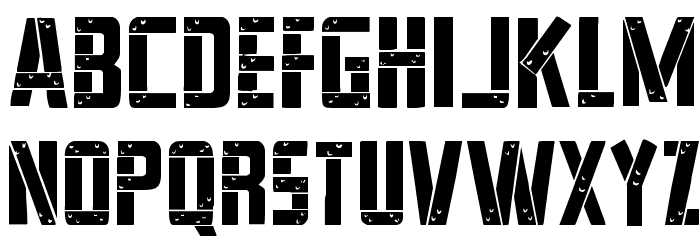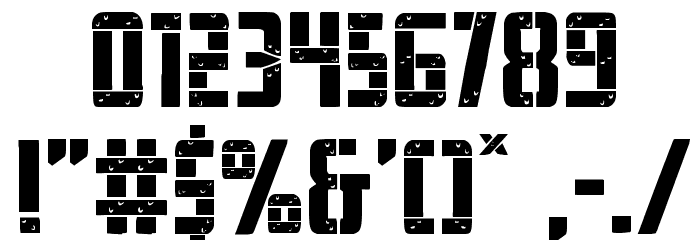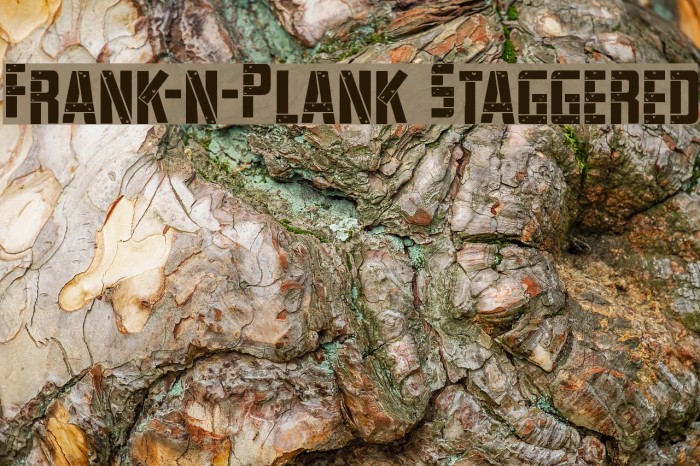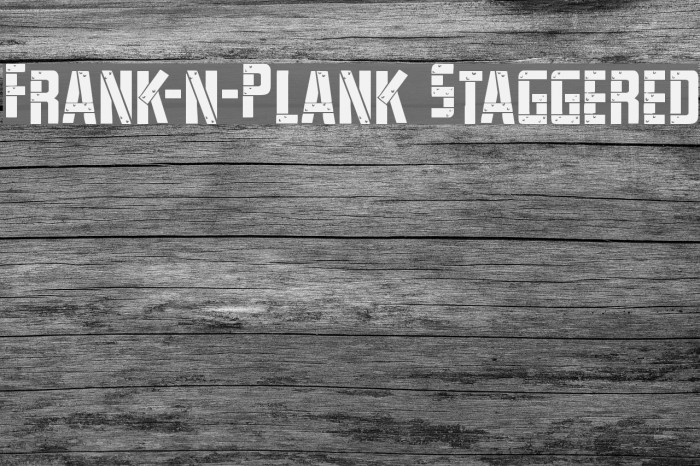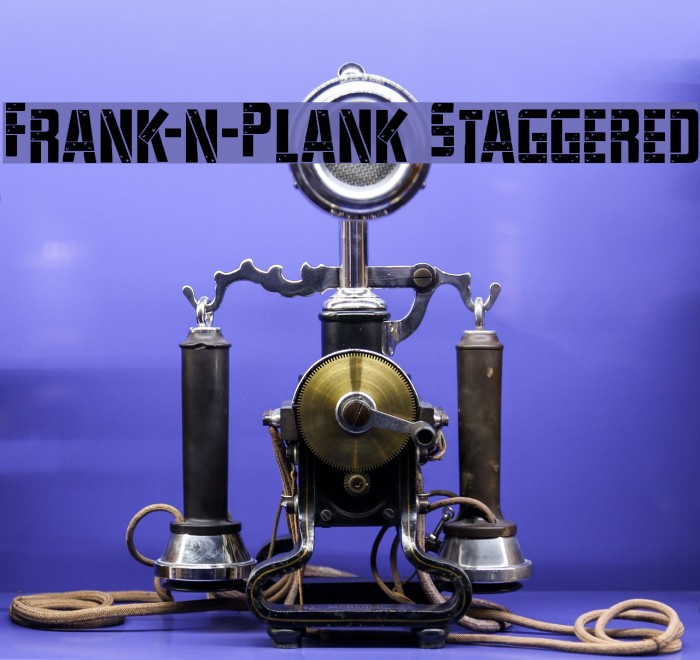
Frank-n-Plank Staggered Font
This font features a bold, industrial design with a staggered, plank-like appearance. Each character is constructed with a series of rectangular segments, giving it a mechanical and rugged feel. The font is highly decorative, with a unique style that incorporates small cut-out details, adding to its distinctive look. The uppercase and lowercase letters maintain a consistent structure, while the numerals and special characters follow the same design principles, ensuring uniformity across all glyphs. This font's strong geometric shapes and bold presence make it ideal for eye-catching designs.
A bold, industrial font with a staggered, plank-like design and decorative cut-out details.
- Proposed Projects: Ideal for industrial-themed posters, branding for construction companies, or any project requiring a bold, mechanical aesthetic.
- Overall Style: Industrial, Decorative